Developing type from social environments:
Fer Cozzi on the educational mission of Rubén Fontana
Type design first appeared as a university-taught profession in Argentina, circa 1997, and Rubén Fontana developed one of its first syllabuses.
Almost a decade later, Fer Cozzi, a graffiti teen who drew on the streets as her canvas, enrolled in graphic design at the Universidad de Buenos Aires (UBA). In 2012, she went to study under Fontana in a specialized typography course.
Today, it has transformed into a Masters in Type Design at UBA and its syllabus is widely referred to as the educational standard across Latin America. Cozzi is an independent type designer, author of award-winning fonts and Professor in the Masters of Typeface Design course at her Alma Mater. In 2019, she was named among the ten Ascenders—outstanding type designers under 35, according to Type Directors Club. In this piece, she recalls Fontana’s classes and the most important things he taught.
(born 1942)
A prominent figure of design education in Argentina. From 1985 to 2017, he taught typography at UBA and established a teaching program rooted in the diverse national cultures of Latin America. In 2022, The Type Directors Club announced Fontana as recipient of the TDC Medal. One of his typefaces, Fontana ND, also received the TDC’s Certificate of Excellence.
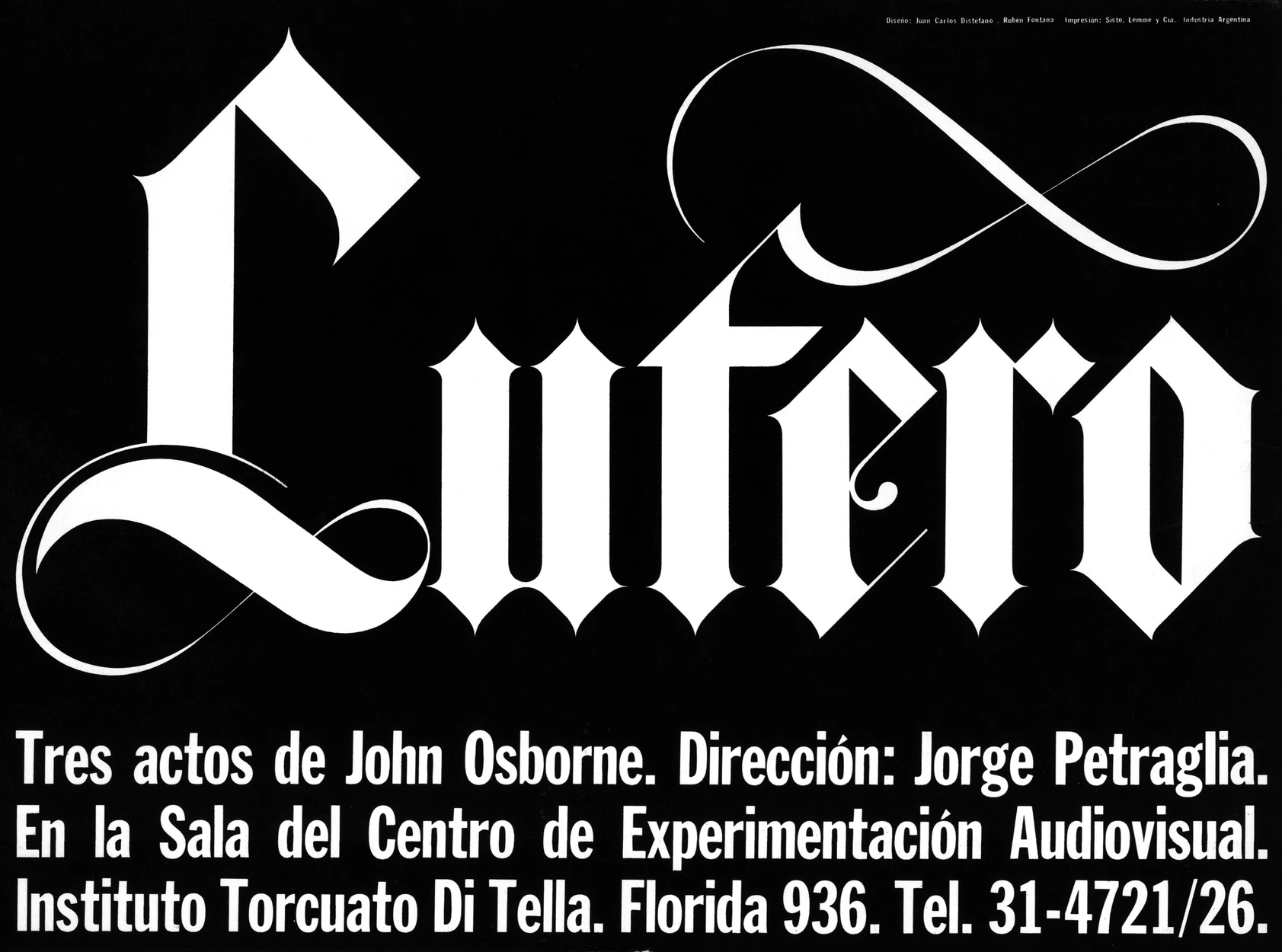
Luther Poster for Instituo Di Tella designed by Juan Carlos Distéfano, Rubén Fontana and Juan Andralis, 1966.
Free classes for all who aspire
UBA is a state-funded public university that provides education free of charge to students from across Latin America. The typography classes taught by Rubén were really popular, often attended by more than two hundred people at once. That was part of the inspiration for his own educational method, that emphasizes the basics of typography in the most fun and entertaining way, but at the same easily adapts to the needs of different students. Rubén’s method laid the foundation for modern typography classes in Argentina and many are still taught in a similar way. As a teacher, I am personally adherent to Rubén’s curriculum and methods.
Cover of Tipografica magazine designed by Rubén Fontana, 1987.
Logo of the Central Bank of the Argentine Republic designed by Rubén Fontana & Zalma Jalluf and Team, 2007.